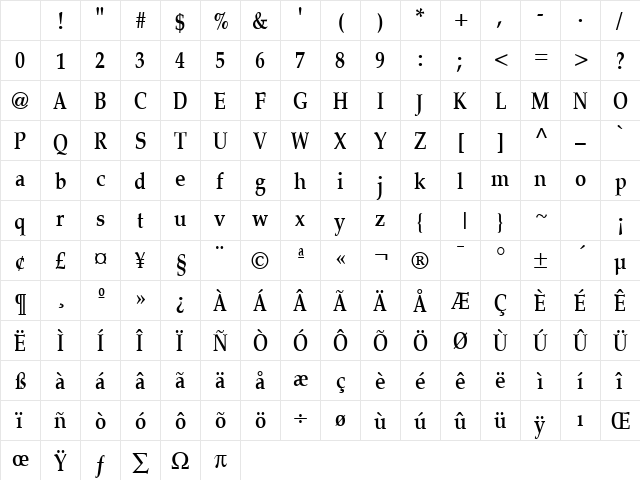
Complete LatinoPalCond5 DemiSH glyph index. Displaying only characters natively supported by LatinoPalCond5 DemiSH font.
LatinoPalCond5 is a composed and adaptable typeface that performs quietly and consistently across a wide range of design contexts. Its narrow stance lets it pack a punch even in space-constrained designs.
Pro Tip: Use LatinoPalCond5 in both headline and body roles to test its range before committing to a single application.